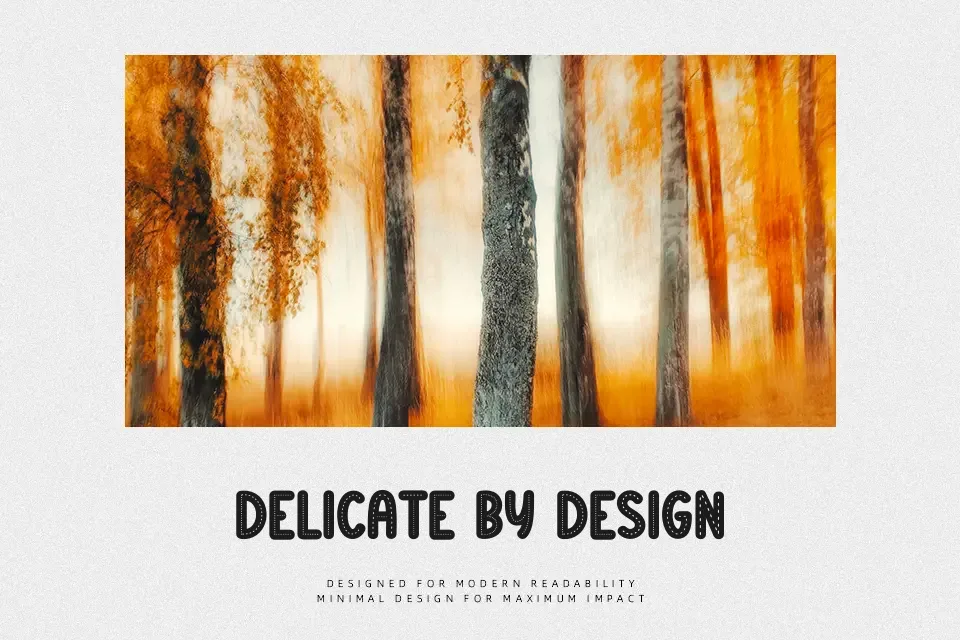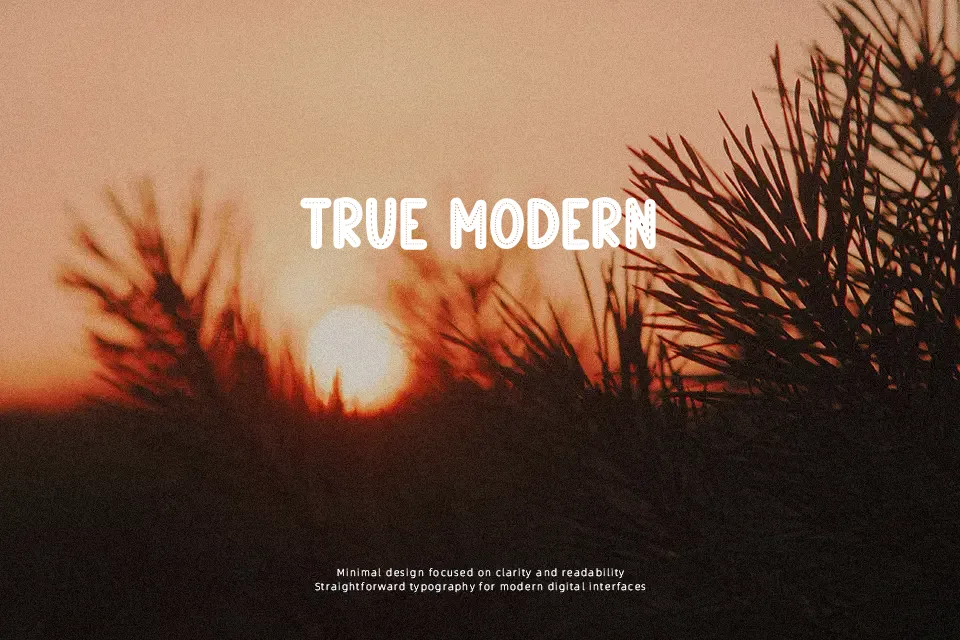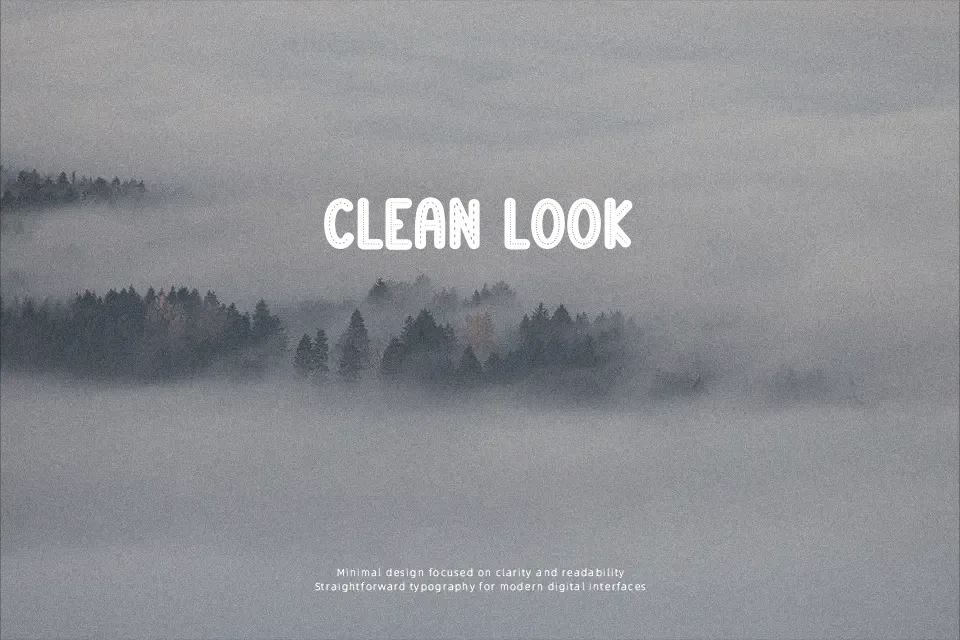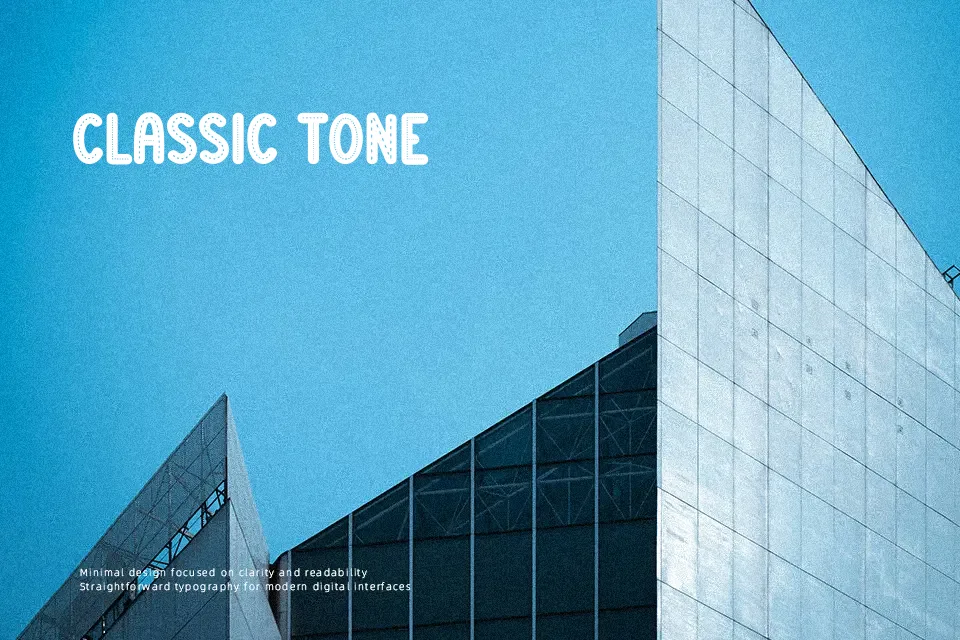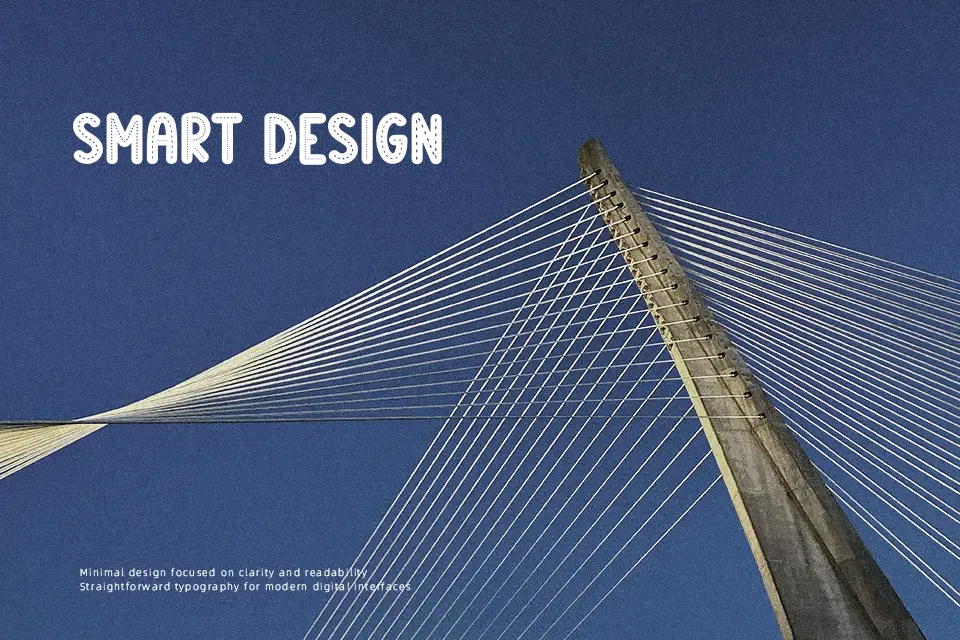
Sweet Snow Font
Sweet Snow Font is a decorative handwritten typeface built for brief, visually led text rather than extended reading. Its letterforms use loose, flowing strokes and uneven handwritten proportions, creating an informal display rhythm across uppercase and lowercase characters. The design reads most clearly when given room in larger headlines, labels, invitations, or social graphics, where its expressive outline can remain visible. Spacing appears more suitable for short phrases than dense composition, and the stroke movement adds character without offering the consistency expected in text settings. Decorative details become less effective in small captions and long blocks of copy.
Best For: wedding invitation titles,product packaging labels,social media quote graphics,short poster headlines
Perfect for advertising, headline, and invitation, with a artistic and decorative style.